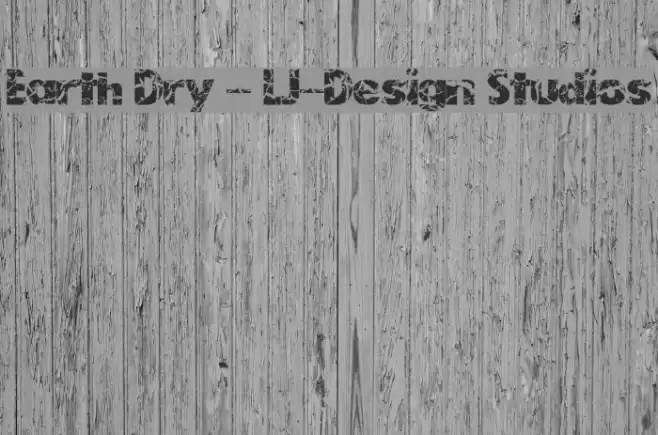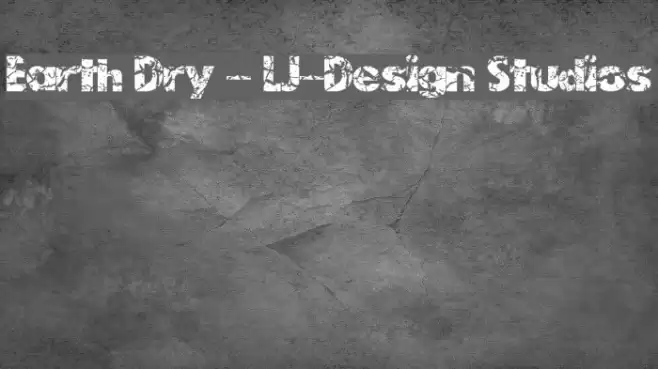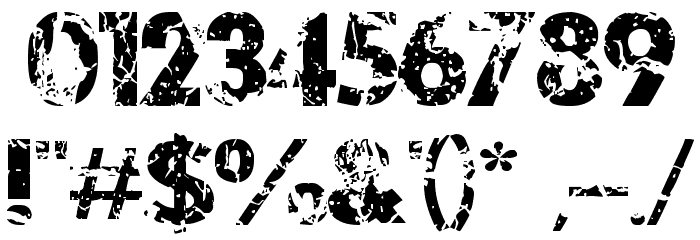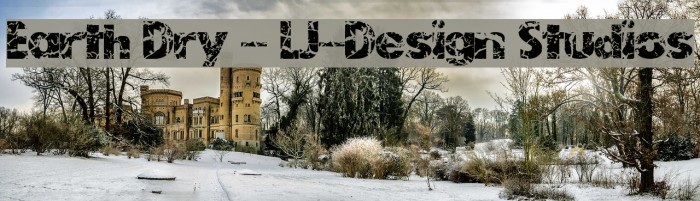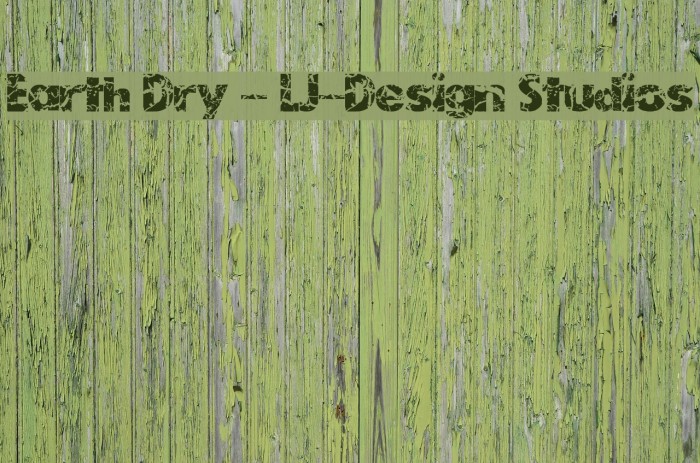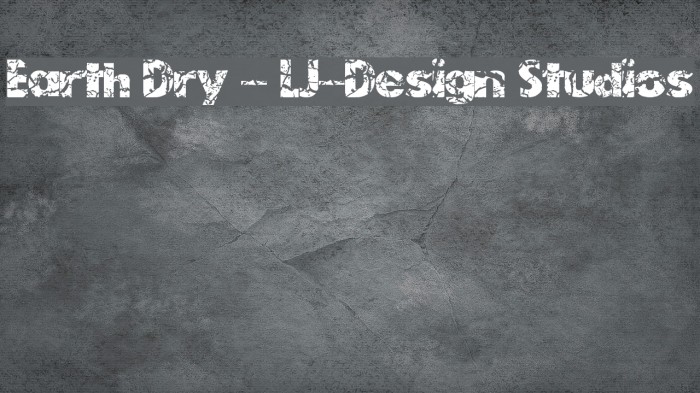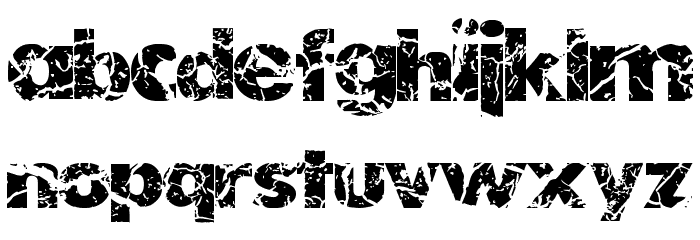
Earth Dry - LJ-Design Studios Font
Earth Dry - LJ-Design Studios Description
This font features a distressed, grunge style with a textured appearance that mimics the look of cracked or weathered surfaces. The characters are bold and impactful, with irregular edges and a rough finish that adds a sense of ruggedness and authenticity. The uppercase and lowercase letters maintain a consistent design, while the numbers and special characters follow the same distressed theme. This font is ideal for projects that require a bold statement or an edgy, urban aesthetic.
A bold, distressed font with a grunge, textured style from Uncategorized fonts.
- Proposed Projects: Perfect for album covers, posters, streetwear branding, and urban-themed designs.
- Overall Style: Grunge, Urban, Distressed